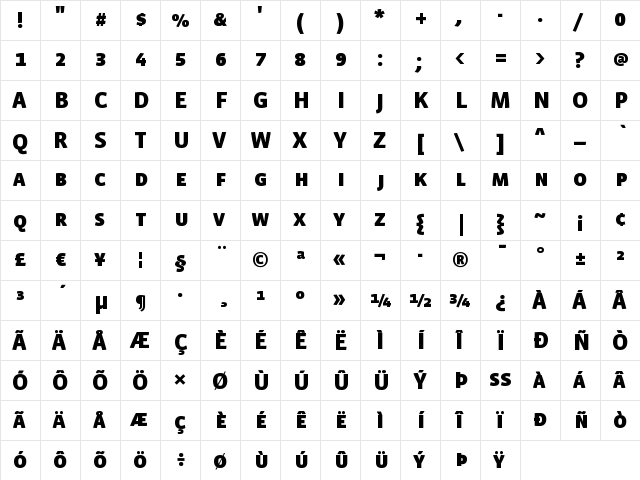
VistaSansSCBlack Regular Font Preview
VistaSansSCBlack Regular
VistaSansSCBlack Regular Font Details
| Foundry | Xavier Dupre |
| Designer | Xavier Dupre |
Design Context for VistaSansSCBlack Typeface
VistaSansSCBlack is a composed and adaptable typeface that performs quietly and consistently across a wide range of design contexts.